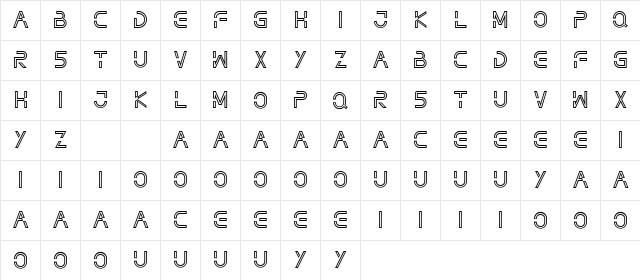
NOTHAN DEMO Outline
| Foundry | edric studio |
| Designer | Ega |
Design Context for NOTHAN DEMO Typeface
NOTHAN DEMO brings ornamental detail and strong personality to headlines and identities, where visual impact matters more than quiet functionality.